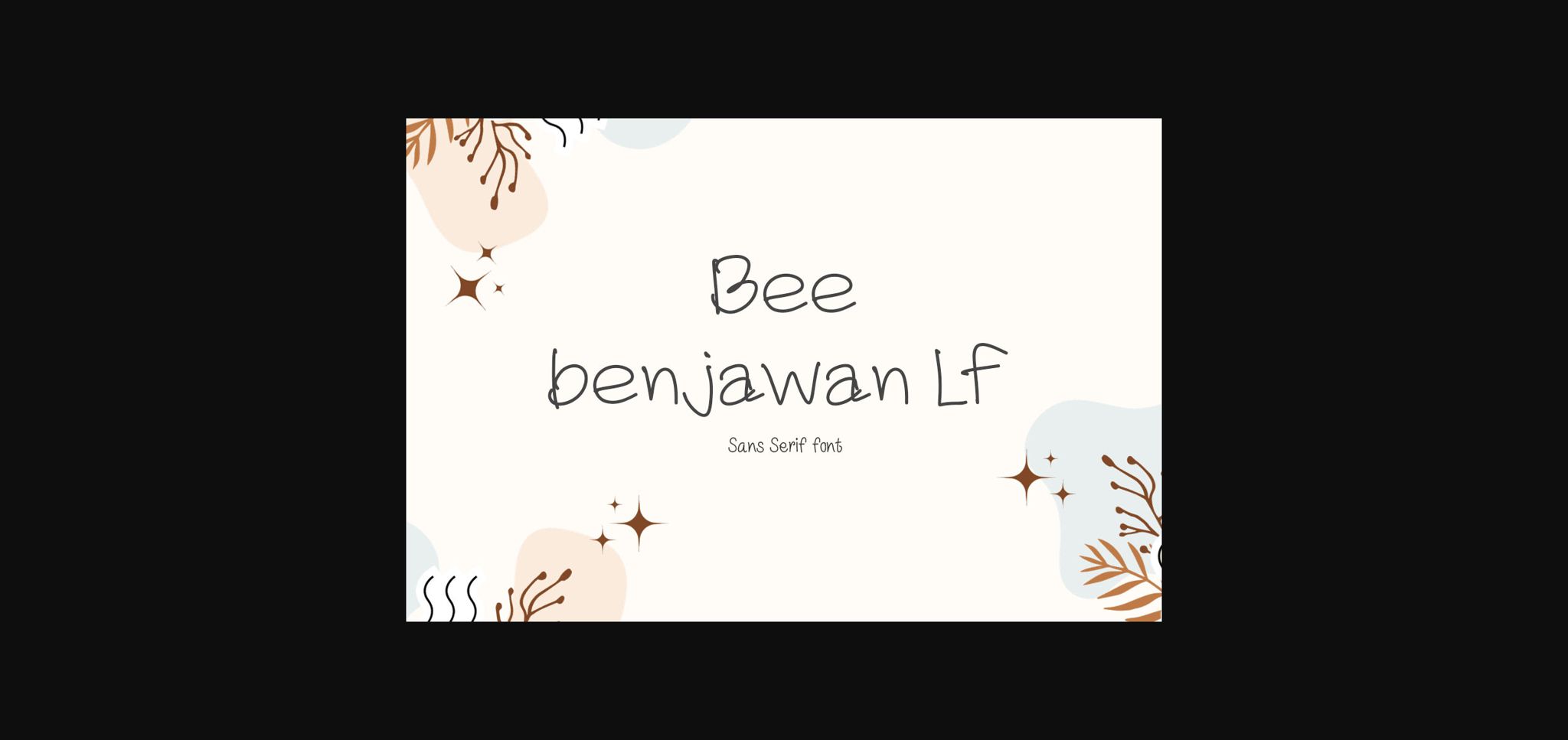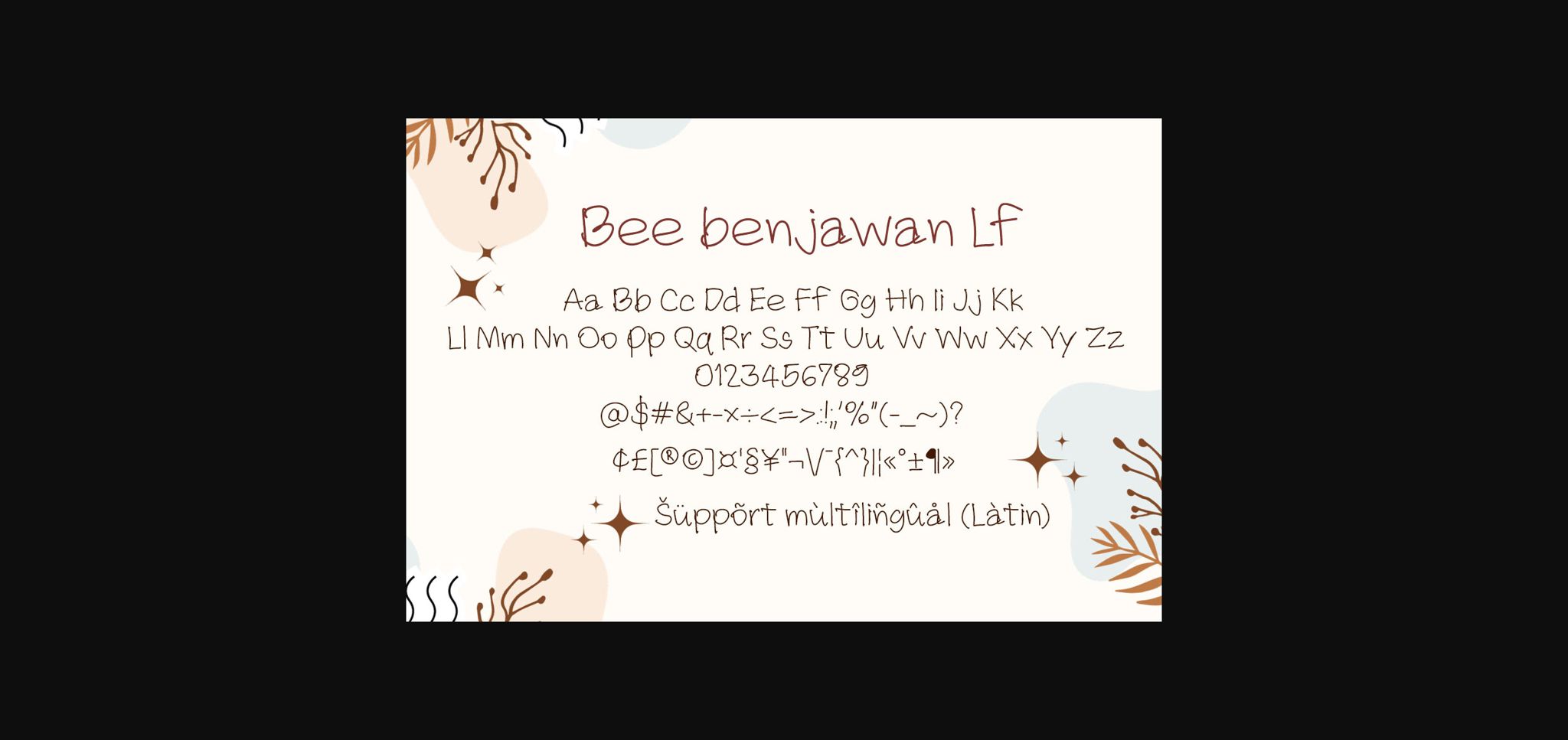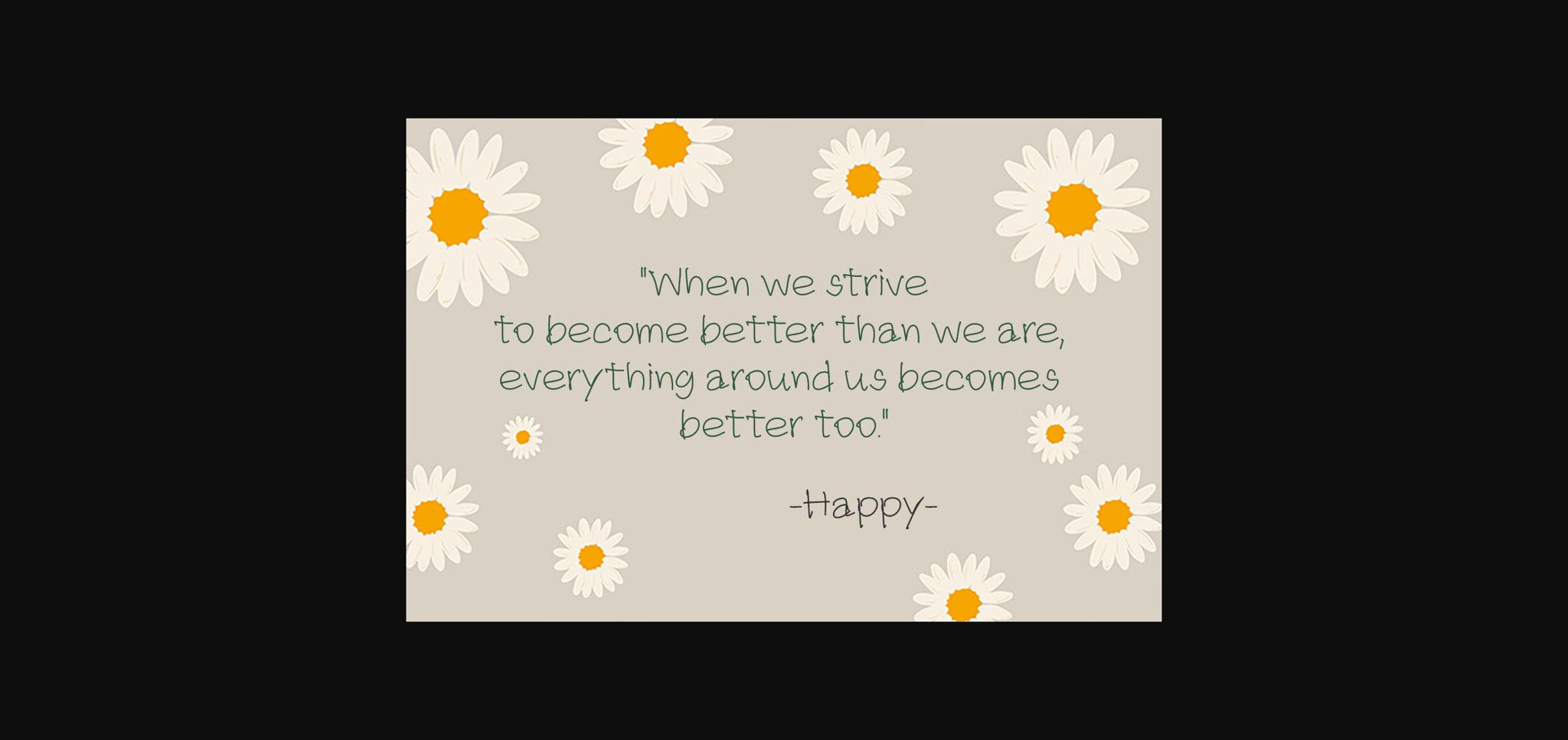
Bee Benjawan Lf Font
About Bee Benjawan Lf Font
Bee benjawan Lf is a playful and a bit quirky handwritten sans serif font style. Add it to your creative projects and enjoy the results!